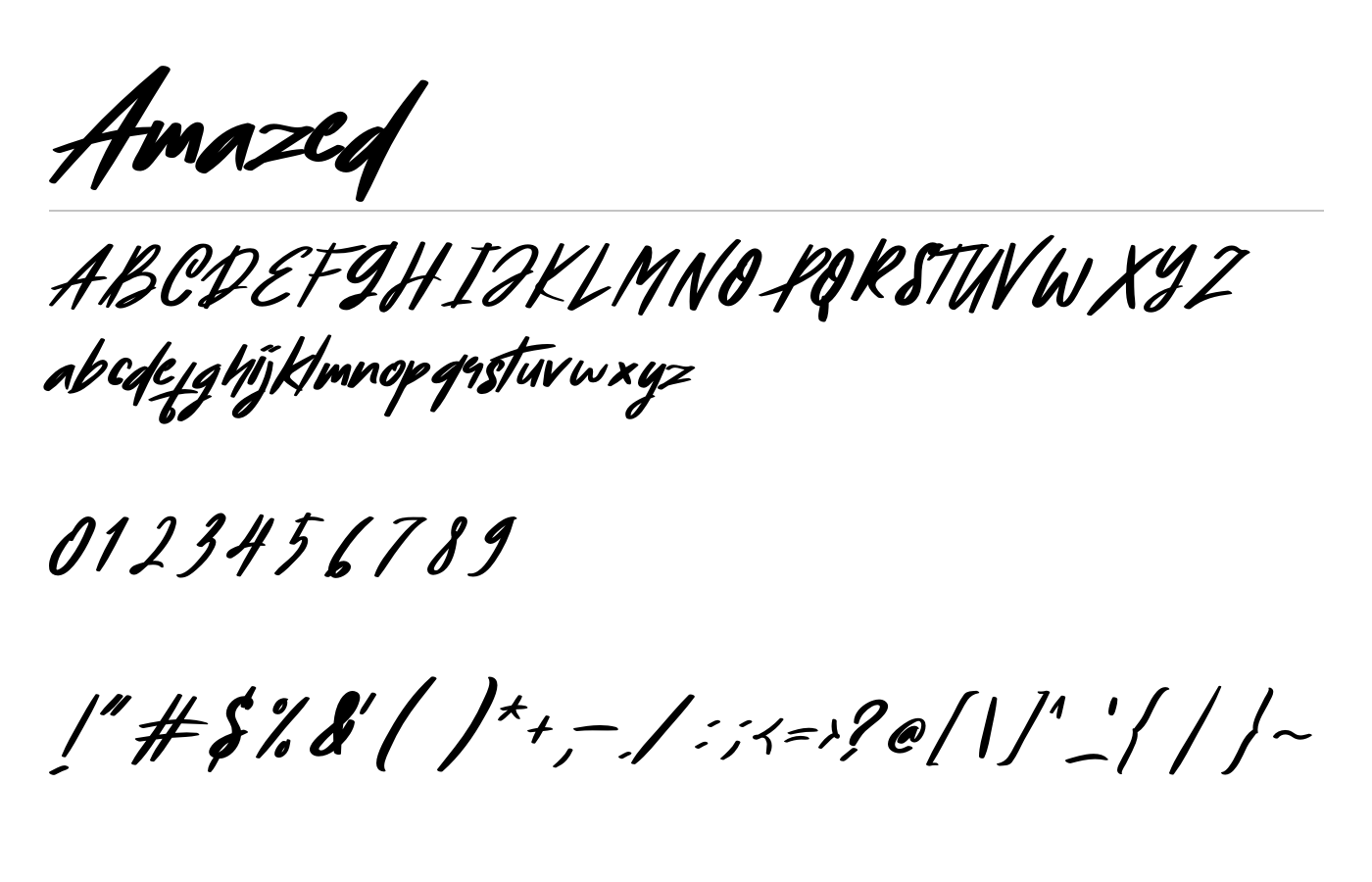
Amazed Font is a lively and bold script typeface featuring dynamic, brush-style strokes that convey energy and personality. Its varying stroke widths and slightly slanted, casual letterforms make it perfect for creative projects, branding, and headlines that need a personal, hand-crafted touch. This font works well in designs aiming for a modern yet approachable feel, such as logos, posters, and social media graphics.
Amazed Font
About Amazed Font
| Font family | Amazed Font |
| Designer | Jada Akbal |